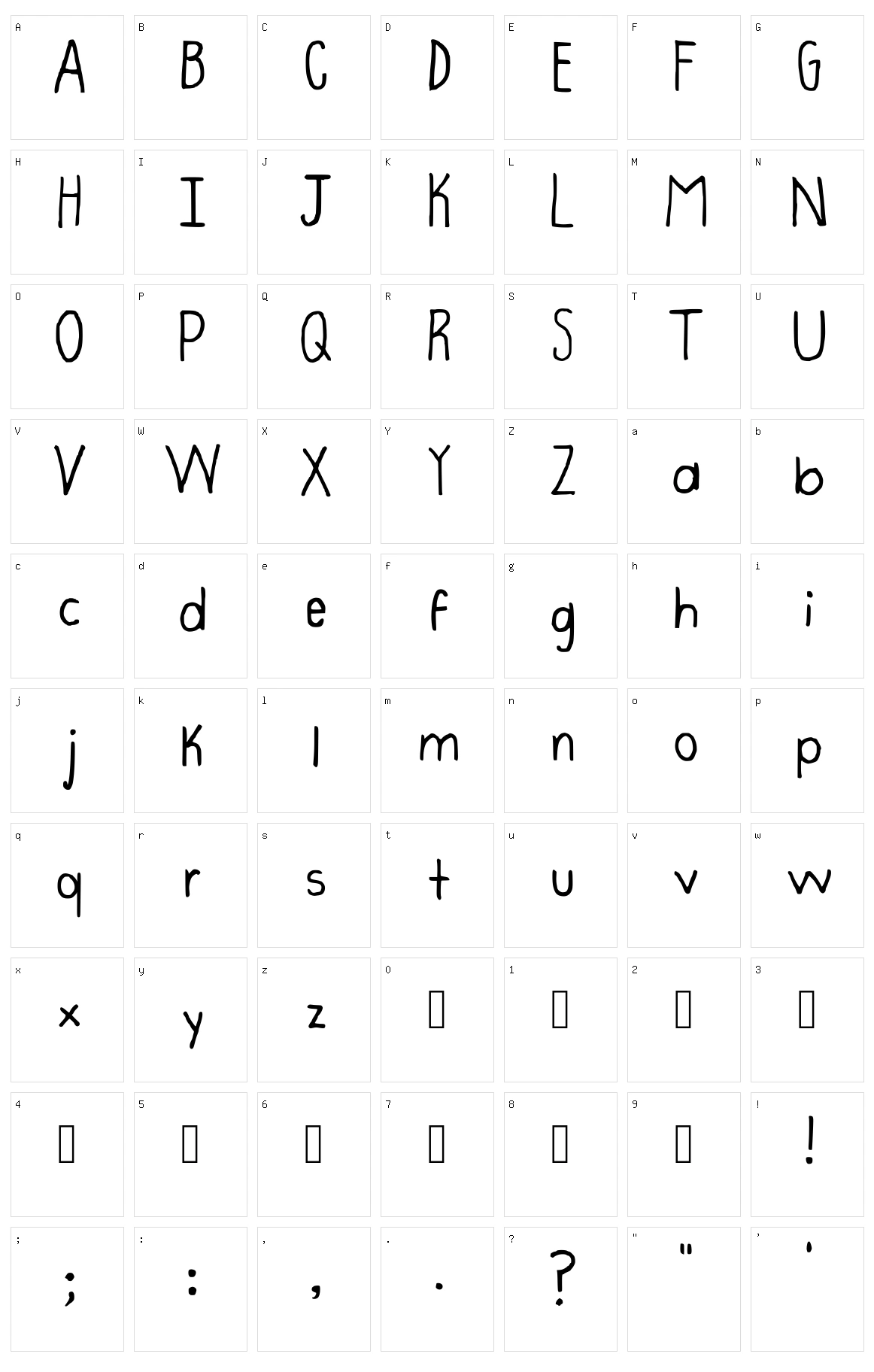
The free font Verditer Lavanda is carefully designed by Karen Dennysse Monterroso, showcasing a thoughtful balance of creativity and usability and falls under the Script font style. When you download the ZIP file, it contains only 12.51 KB of font files, making it lightweight and quick to download. Please review the license details below to understand permitted usage and distribution rights. If license information is not available, we recommend using this font for personal projects only or contacting the author directly for commercial usage permissions.